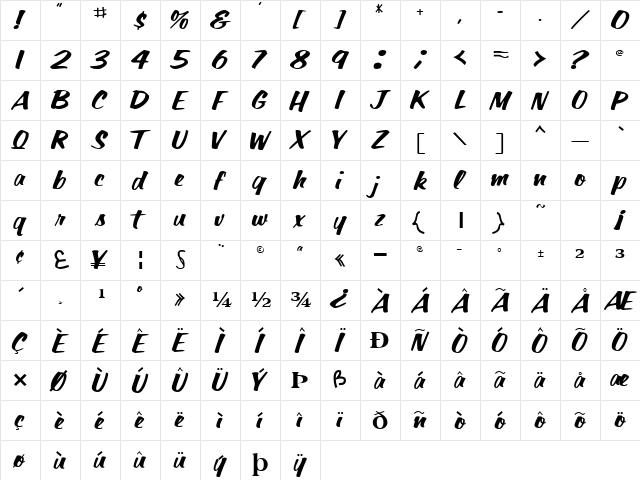
ParagonScriptSSK Regular Font Preview
ParagonScriptSSK Regular
Design Context for ParagonScriptSSK Typeface
ParagonScriptSSK flows with the natural rhythm of handwritten lettering, making it ideal for designs that call for warmth and personal expression.
Font Pairing: Combine ParagonScriptSSK with a simple geometric sans for maximum contrast — the tension between flowing curves and clean structure is a classic typographic pairing.
Pro Tip: Pair ParagonScriptSSK with a clean sans-serif for supporting text. The contrast between fluid script and geometric structure creates an elegant typographic hierarchy.